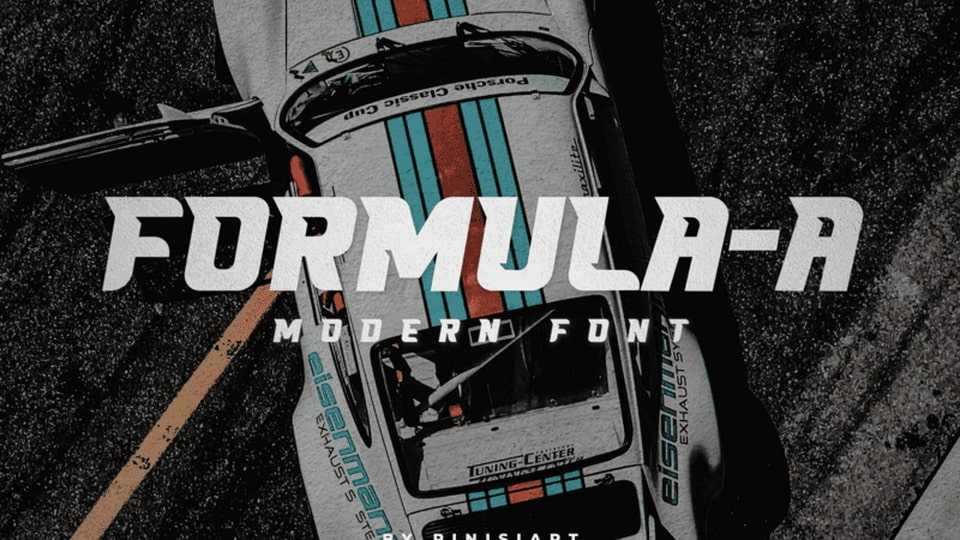
Download Formula A font, a modern display typeface. Fast and competitive world, Formula A is putting the hammer down on the throttle. The racing world will embrace this without a thought.